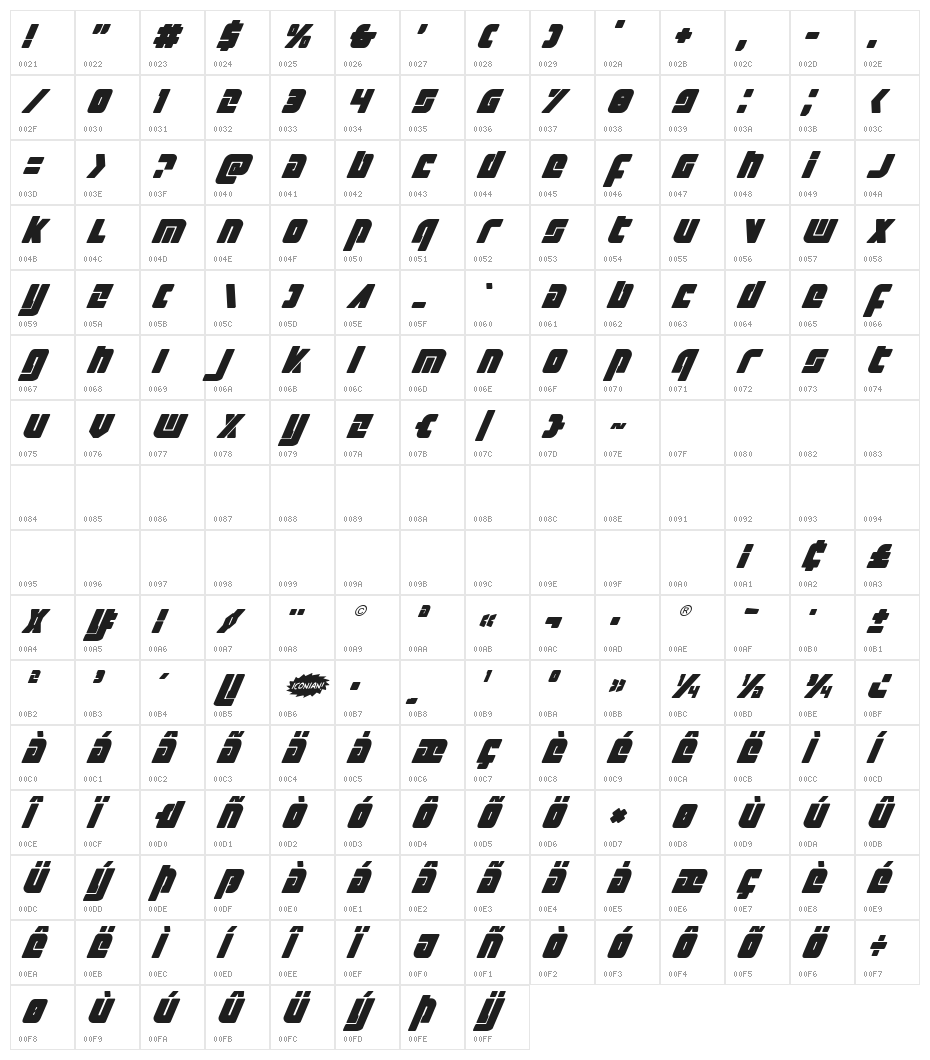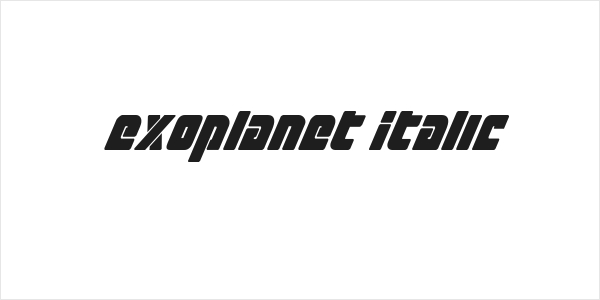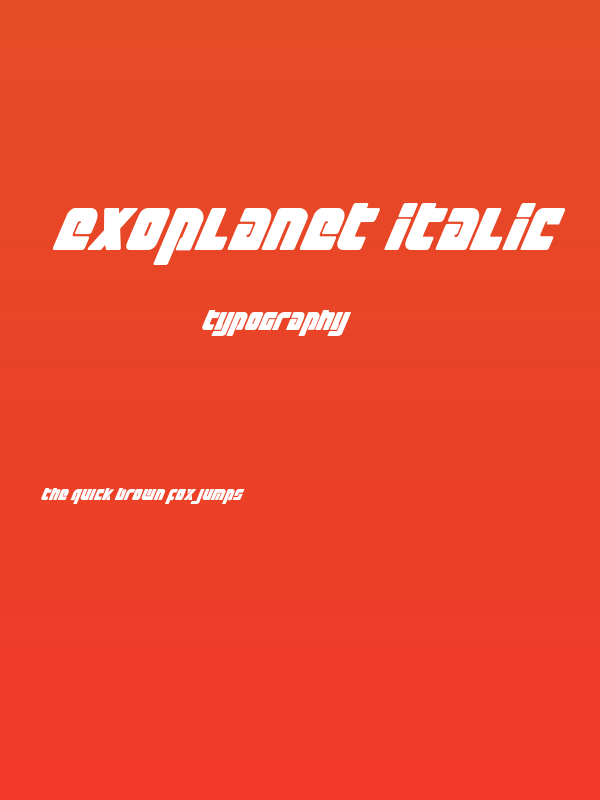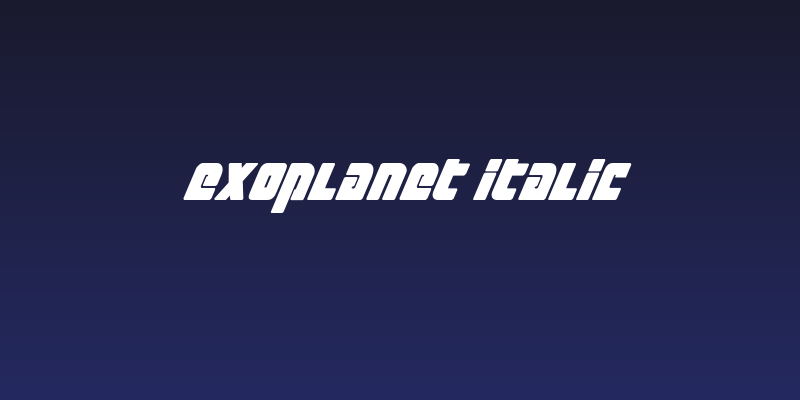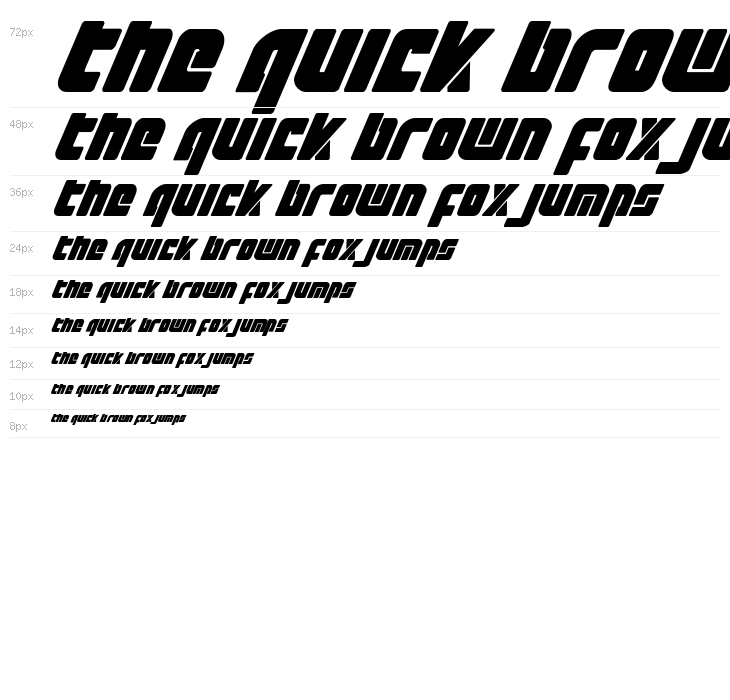
Exoplanet Italic Font
Exoplanet Italic Description
This font features a bold, futuristic design with a strong emphasis on geometric shapes and sharp angles. The characters are italicized, creating a sense of motion and dynamism. The thick strokes and solid forms give it a powerful presence, making it ideal for attention-grabbing headlines or impactful logos. The uppercase and lowercase letters maintain a consistent style, with the lowercase mirroring the uppercase in form and structure. The numbers and special characters are equally bold and stylized, ensuring uniformity across all text elements. The overall aesthetic is modern and sleek, suitable for projects that require a contemporary and edgy look.
| Proposed Projects | Ideal for sci-fi themed designs, tech company branding, video game titles, and modern advertising campaigns. |